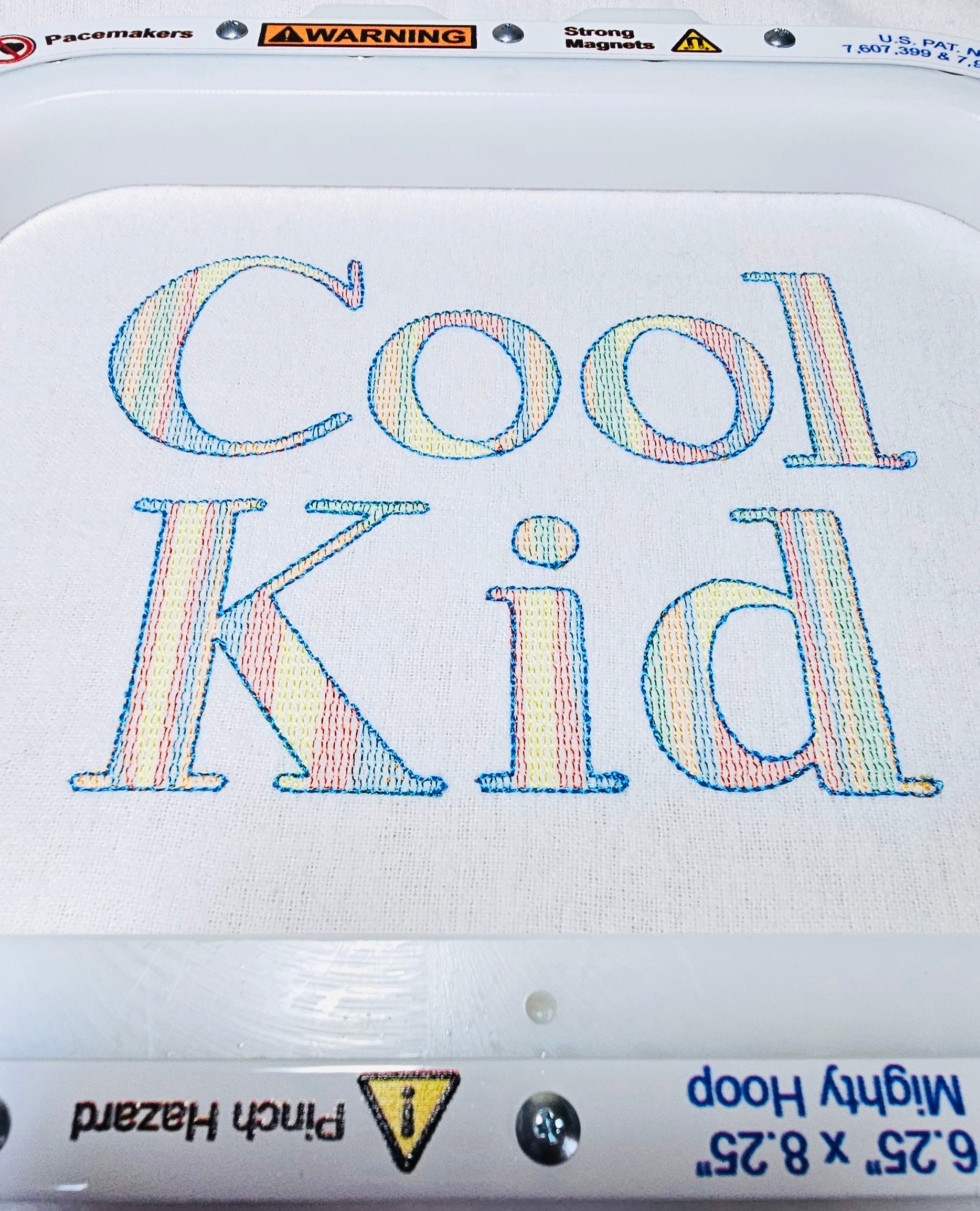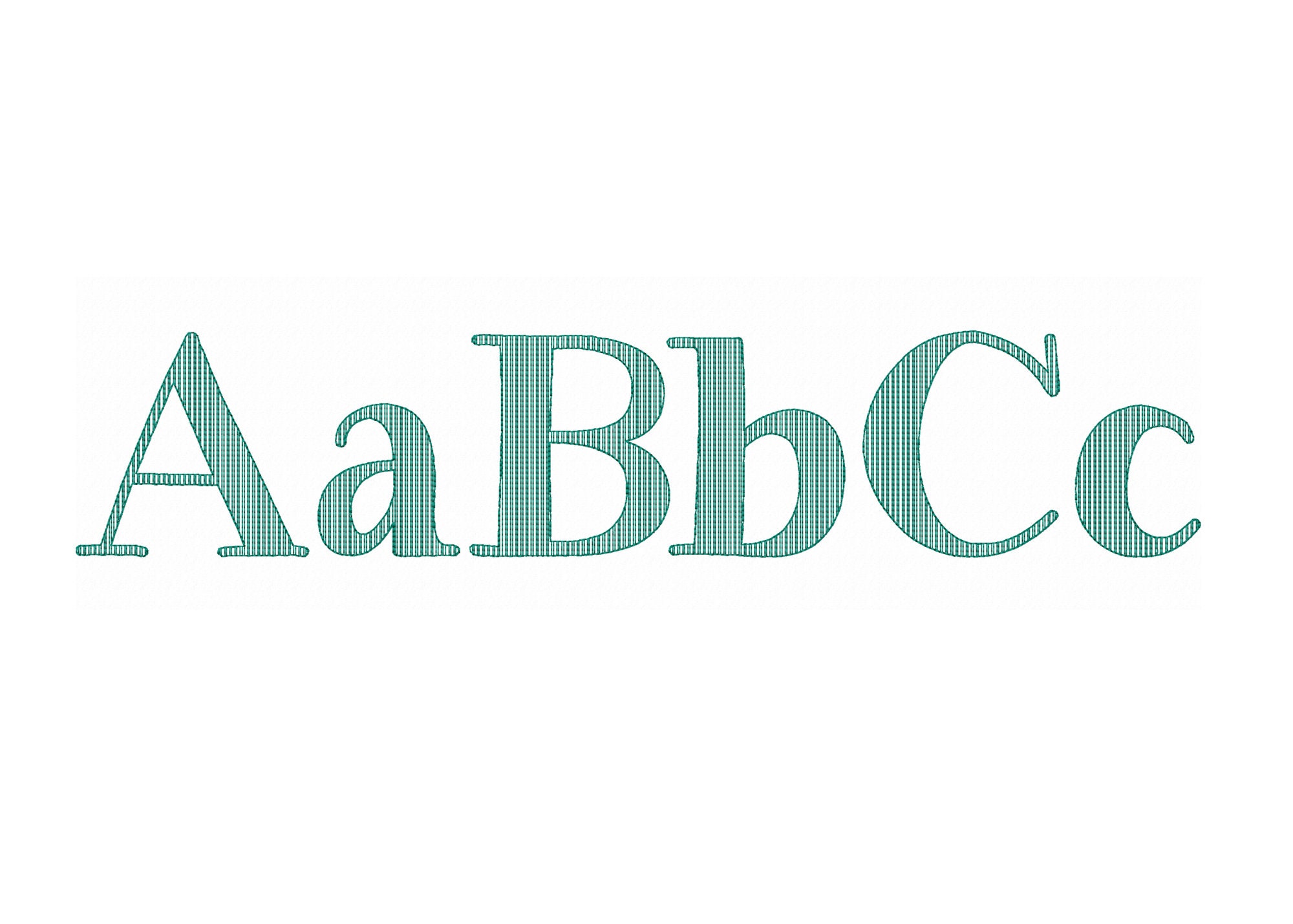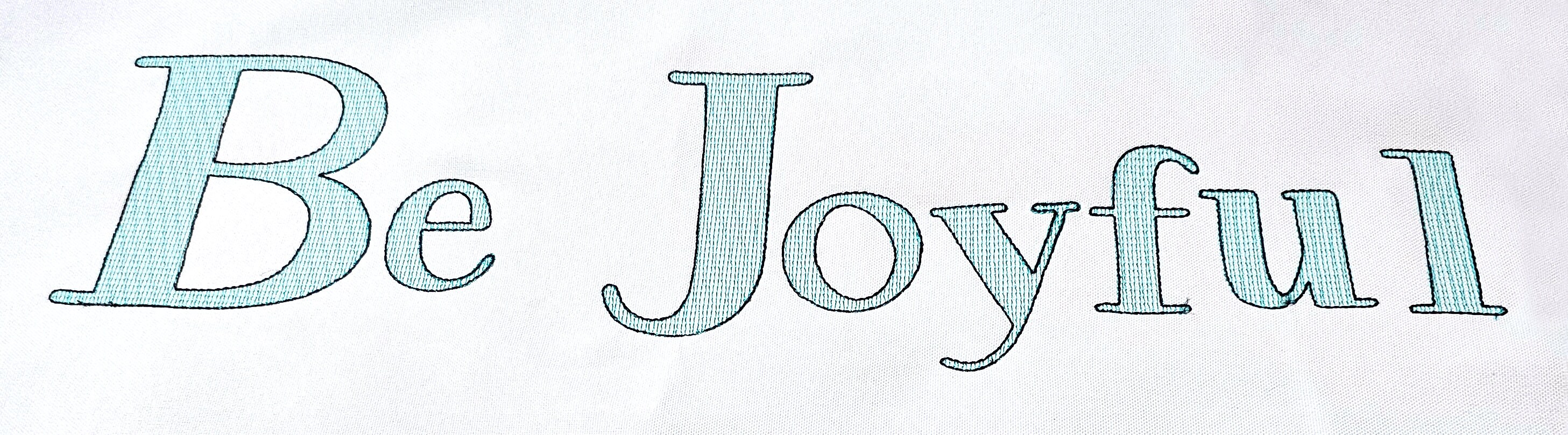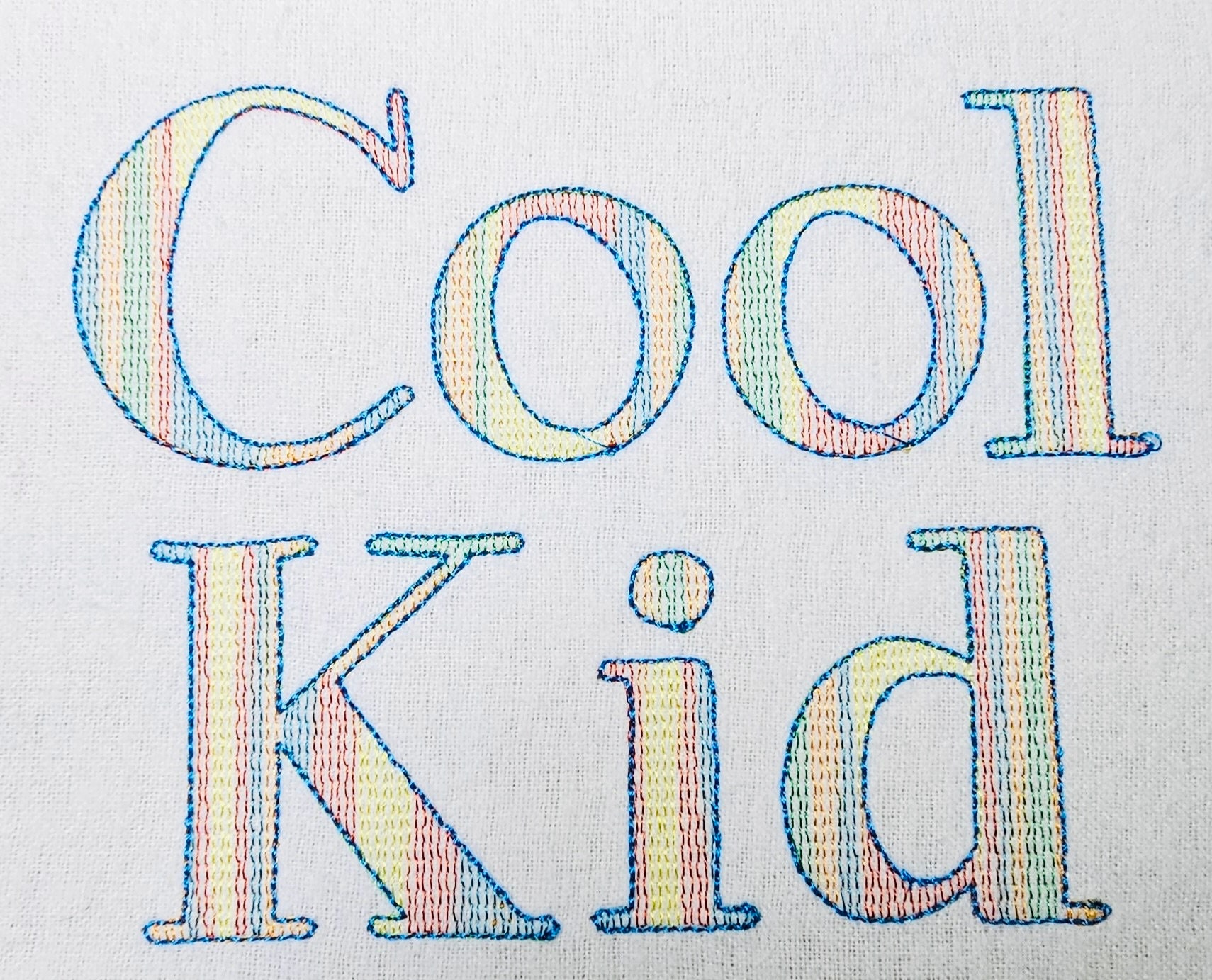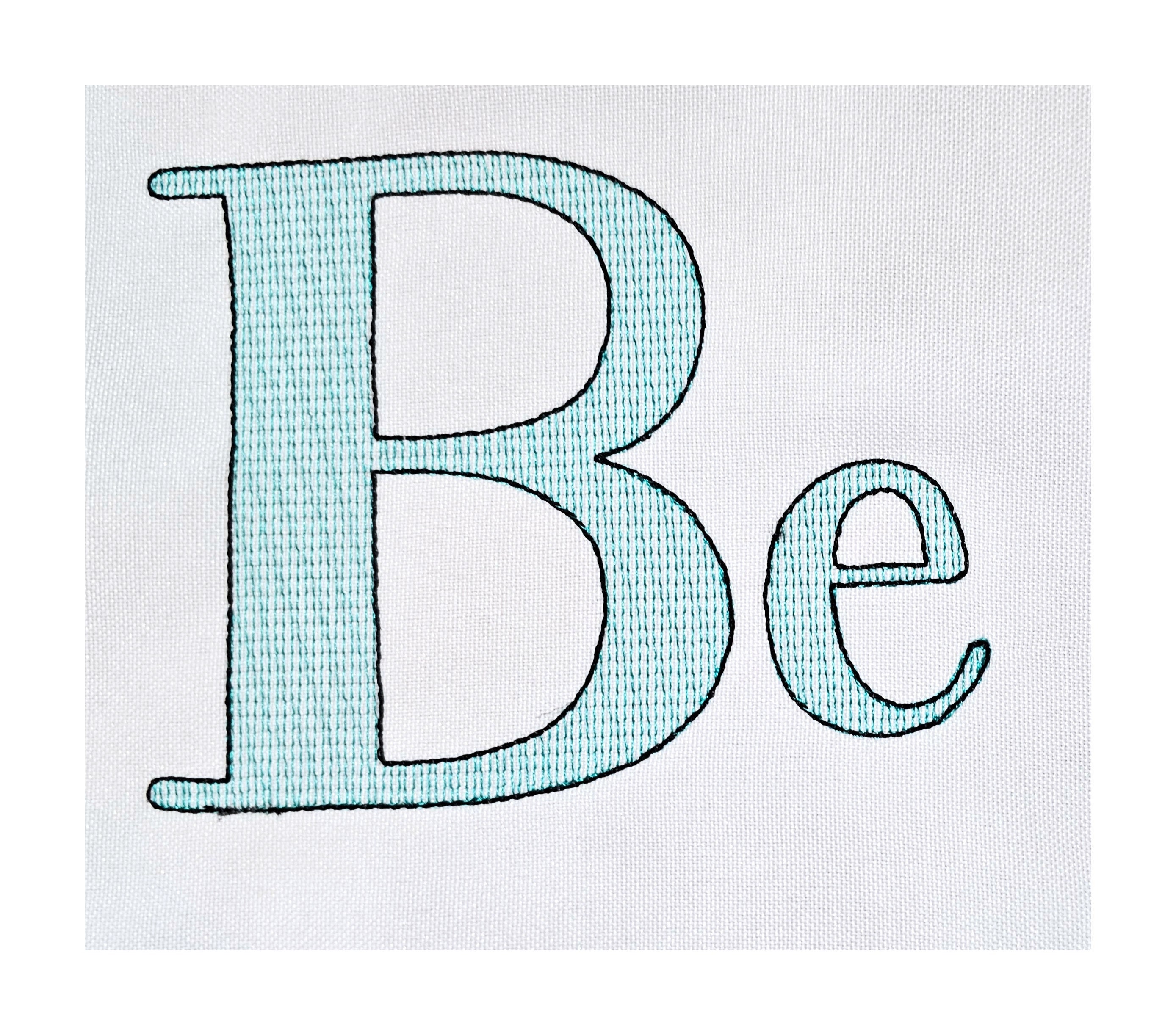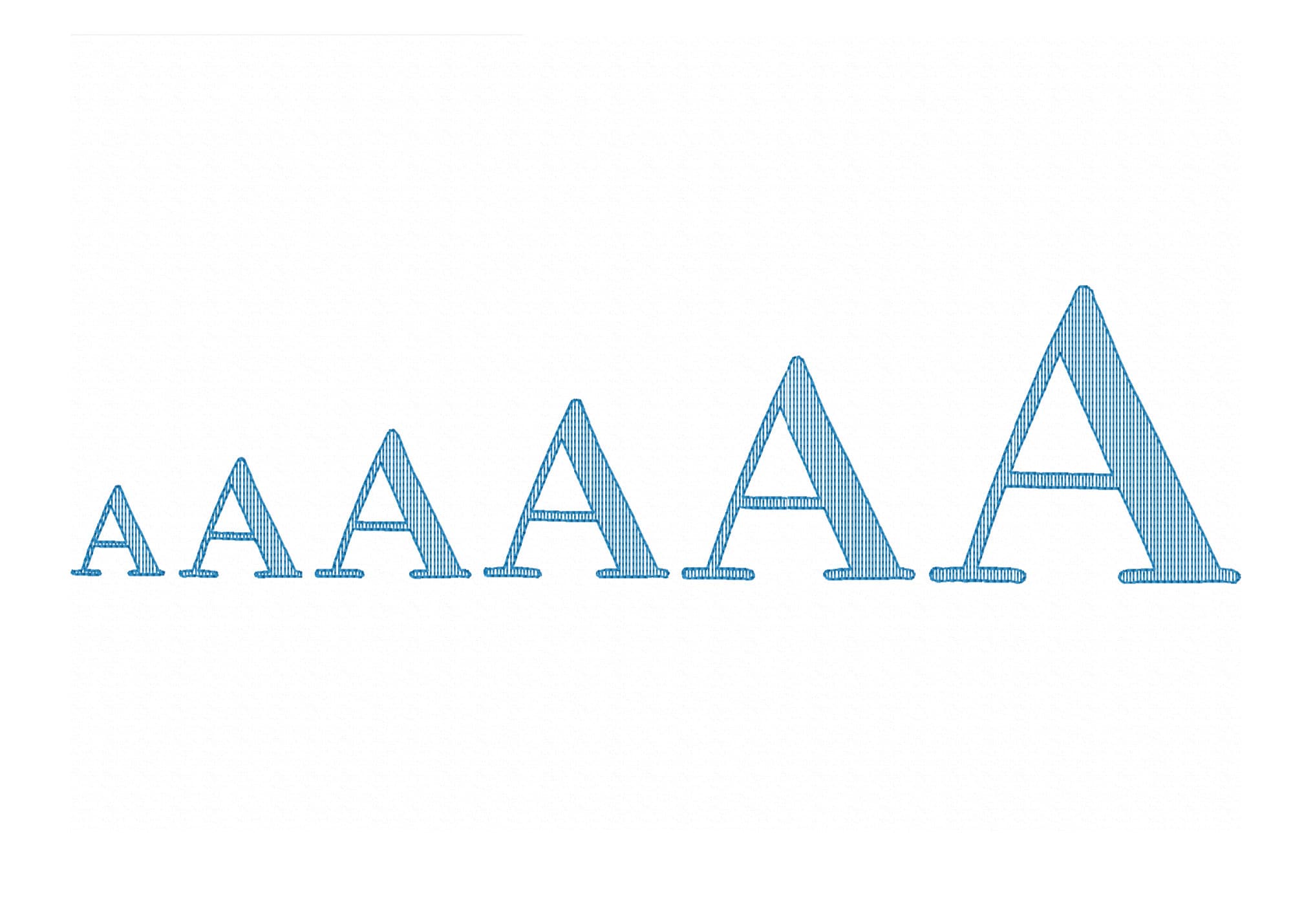
Quick light stitch City Font machine embroidery designs monogram alphabet letters from 1 up to 3.4 inches quick stitch Font, BX included
This font is a quick stitch and it has a low density/light fill stitch and bean stitch outline, it looks best on white or light color fabrics. The background fabric looks through. Stunning effect!
Whole alphabet uppercase and lowercase letters Aa-Zz, numbers 0-9, and punctuation & . , - !